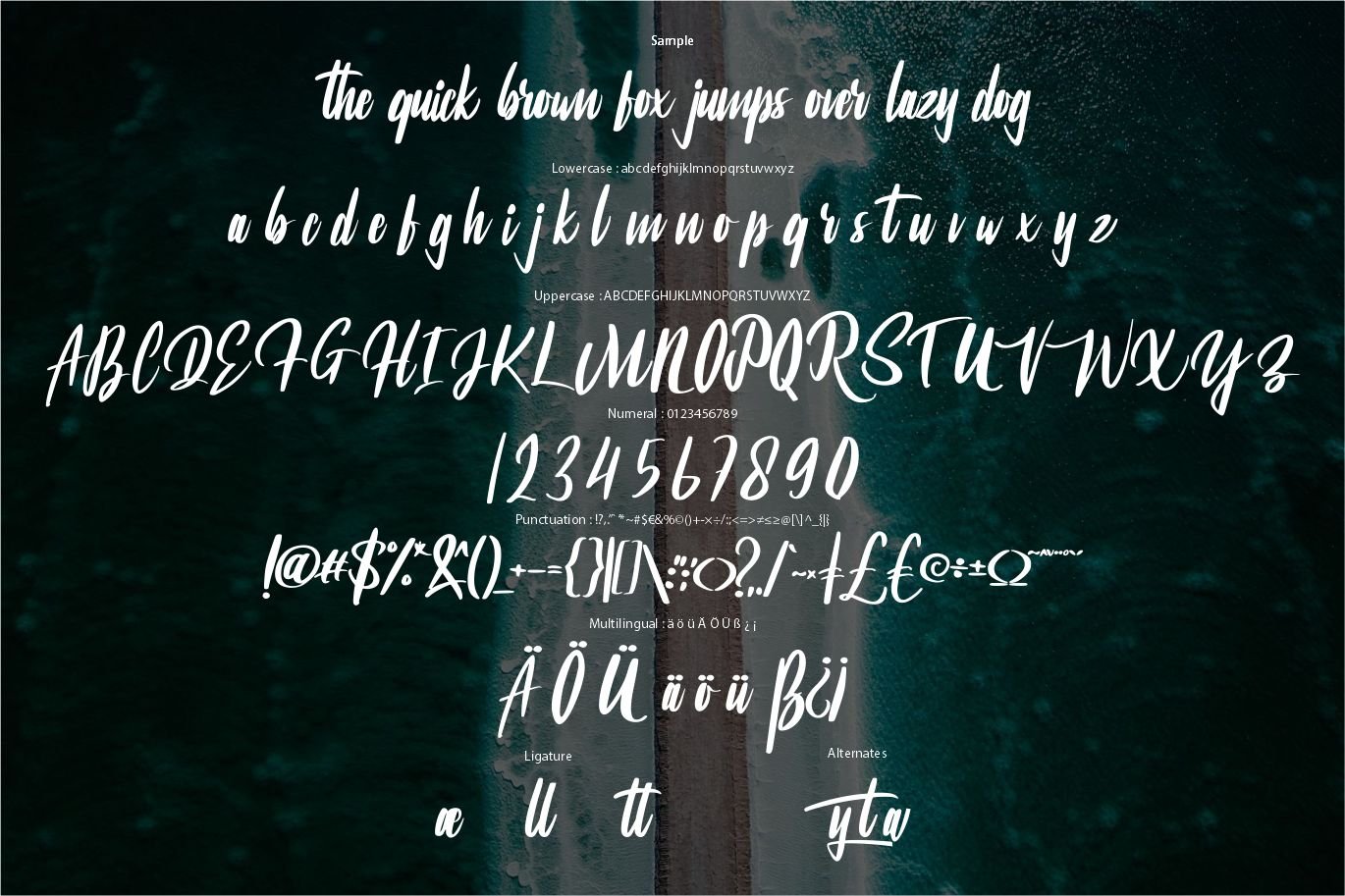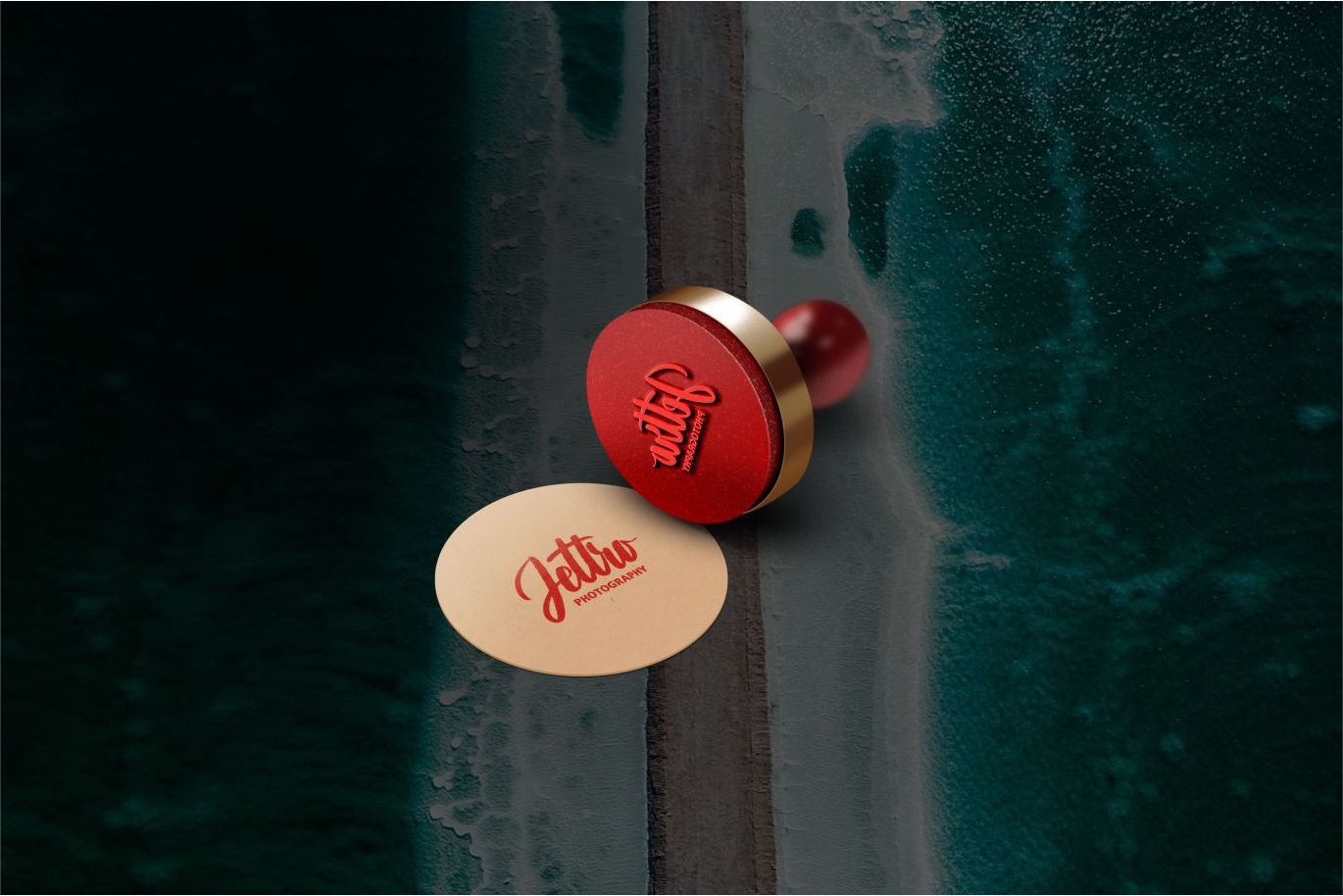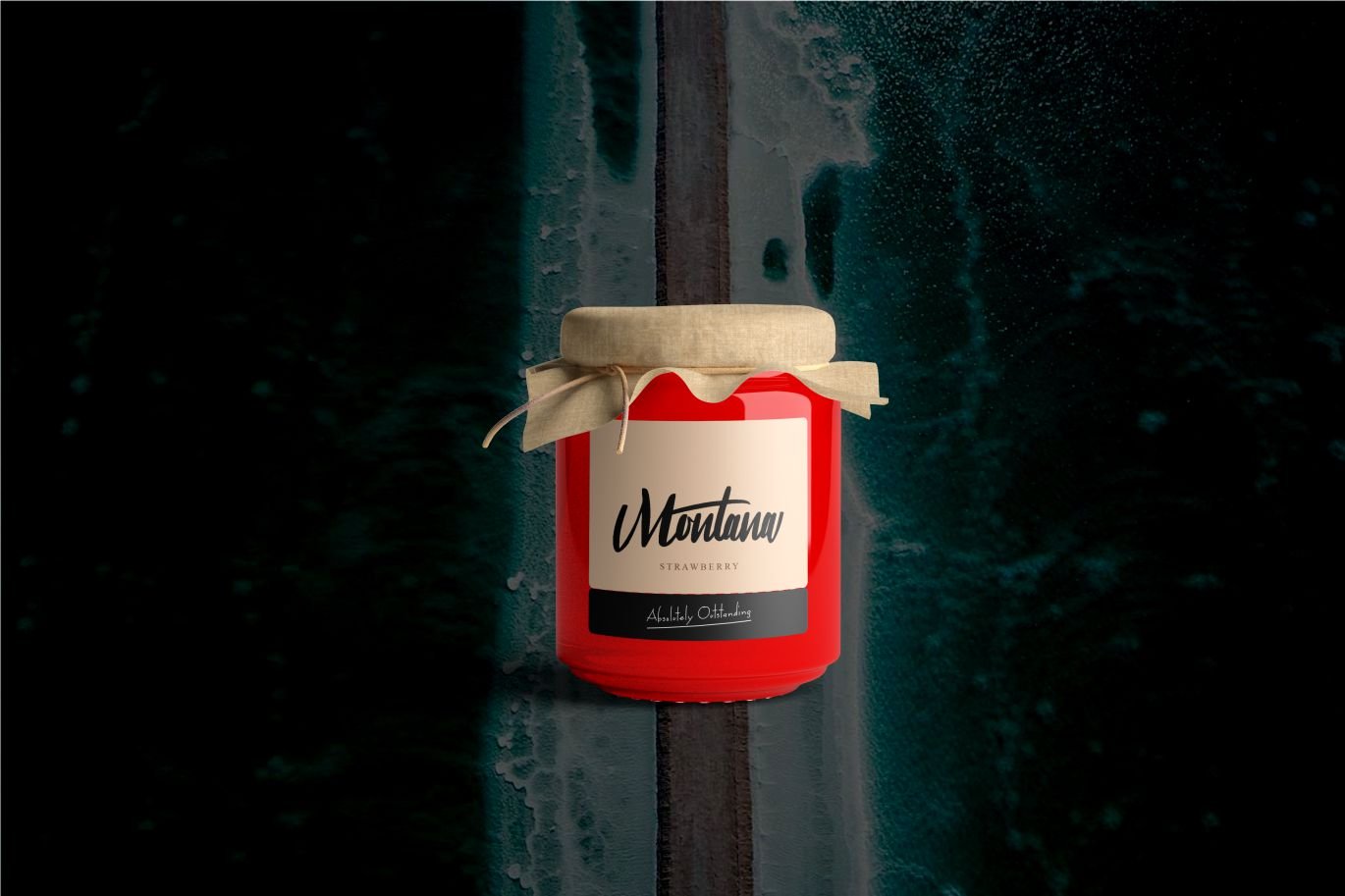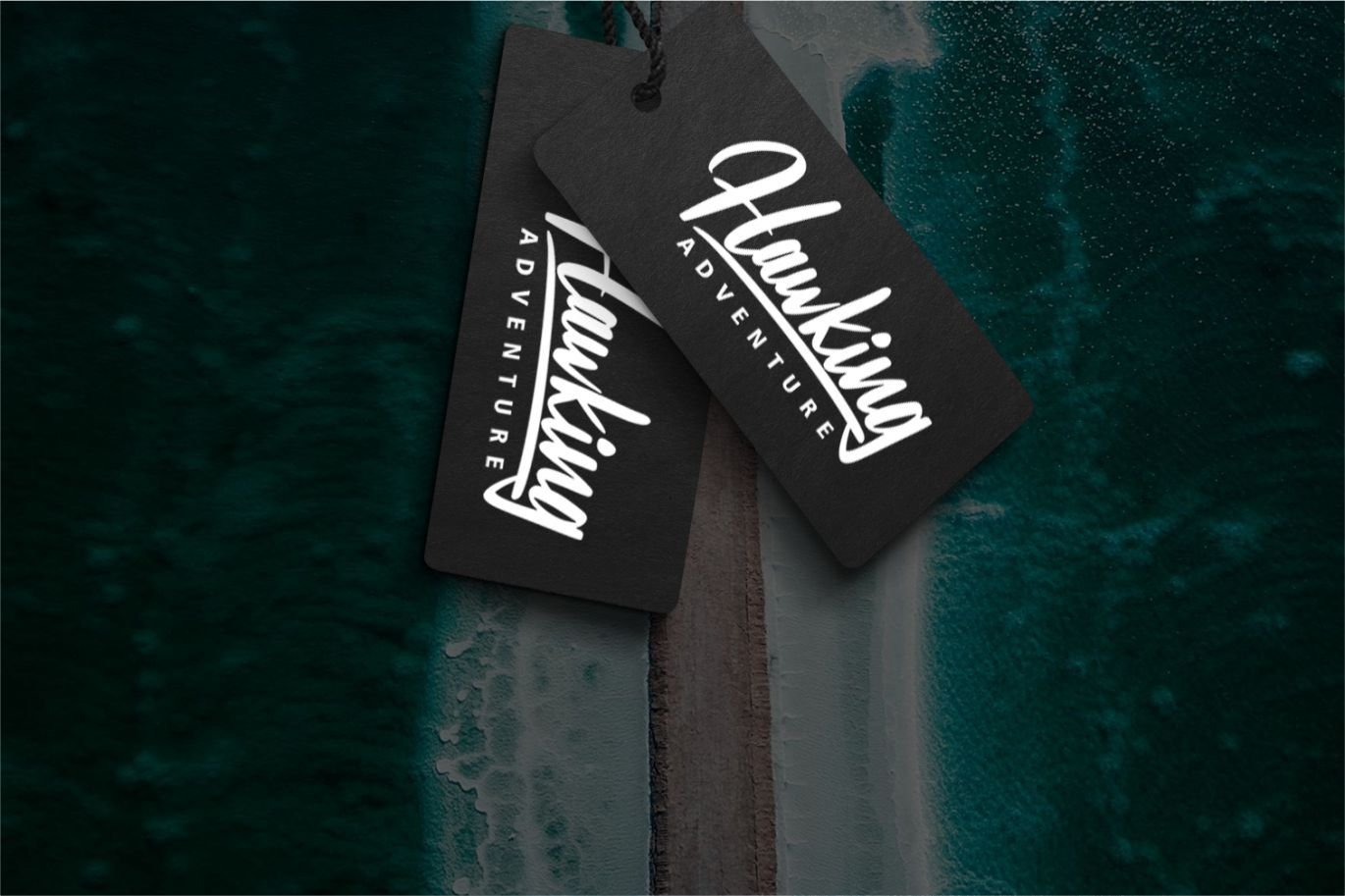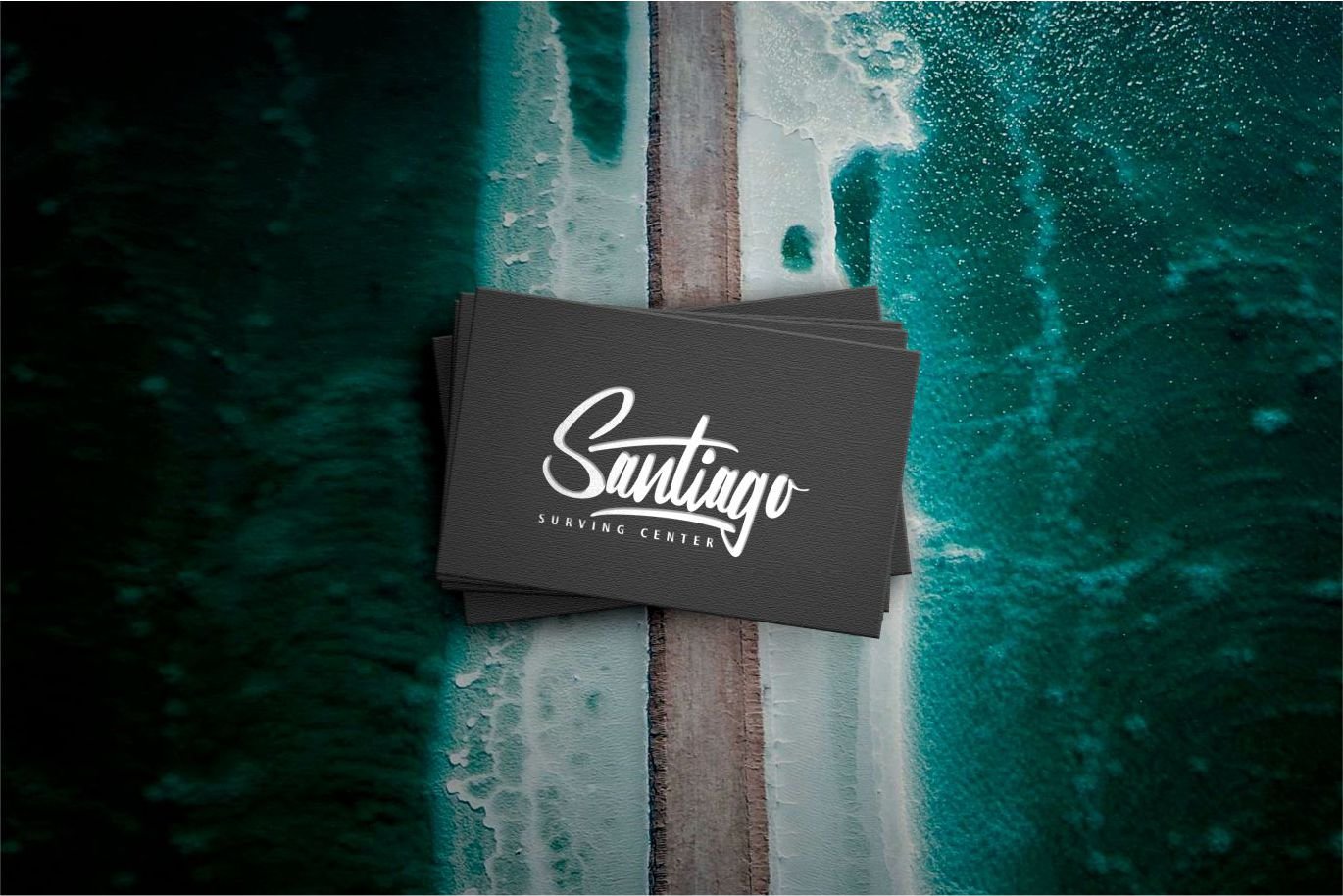
Dayana | Modern Font Script
Dayana | Modern Font Script with a calligraphy style, So beautiful on invitation like greeting cards, branding materials, business cards, quotes, posters, and more!